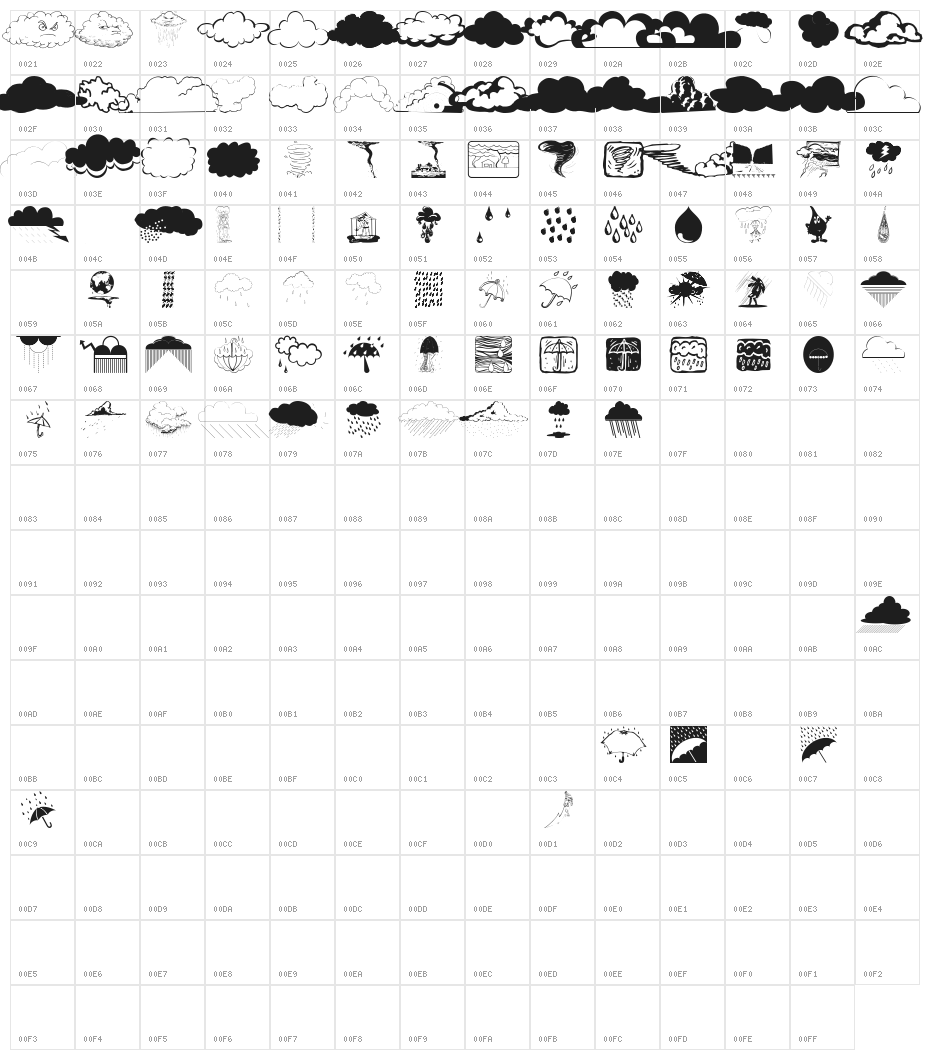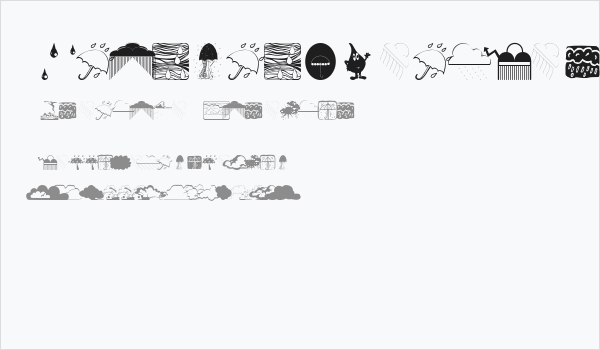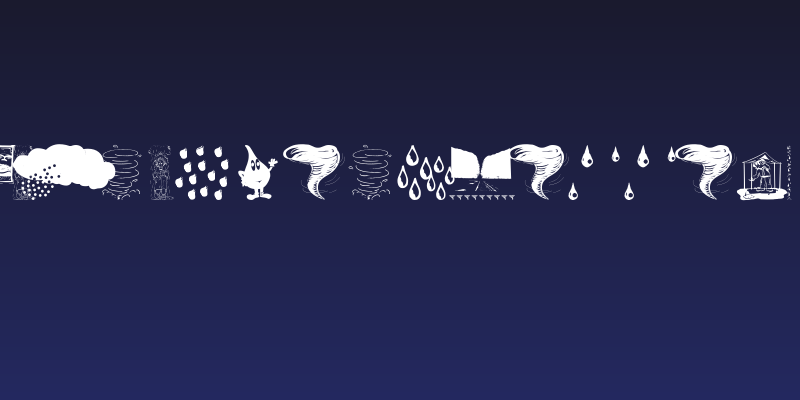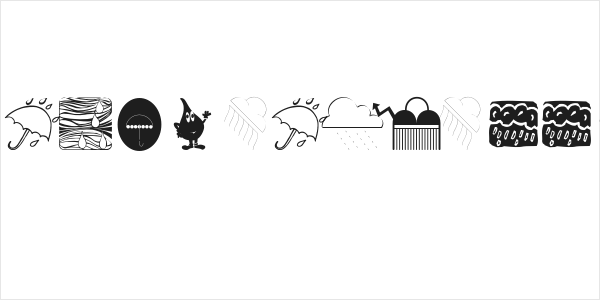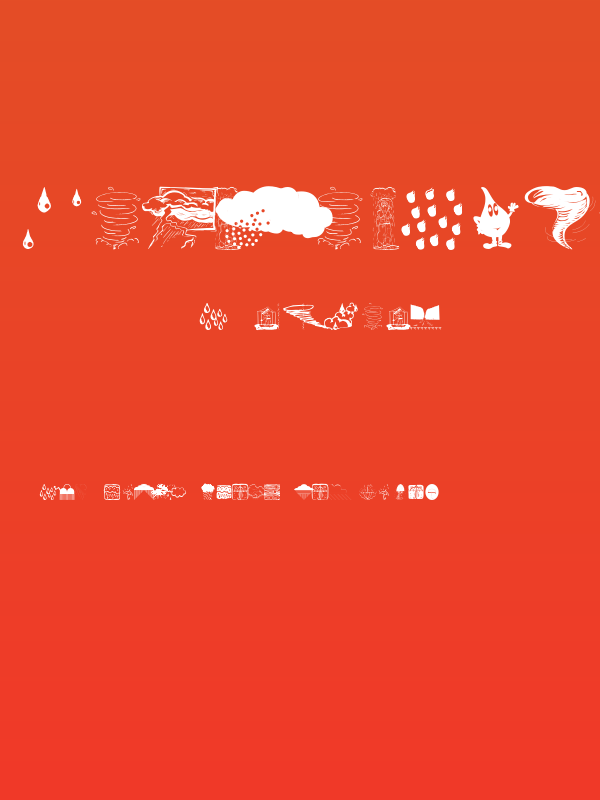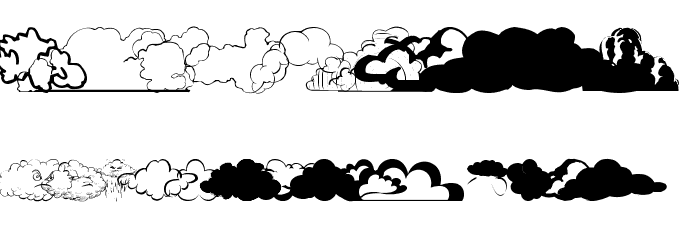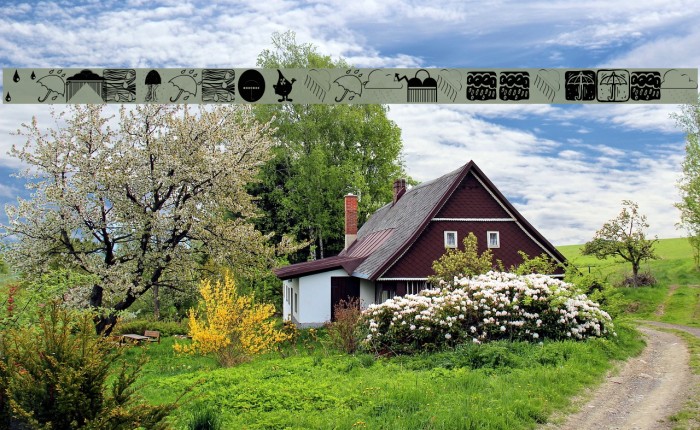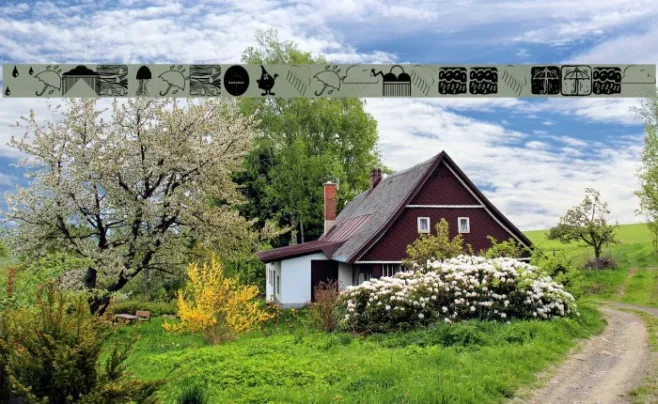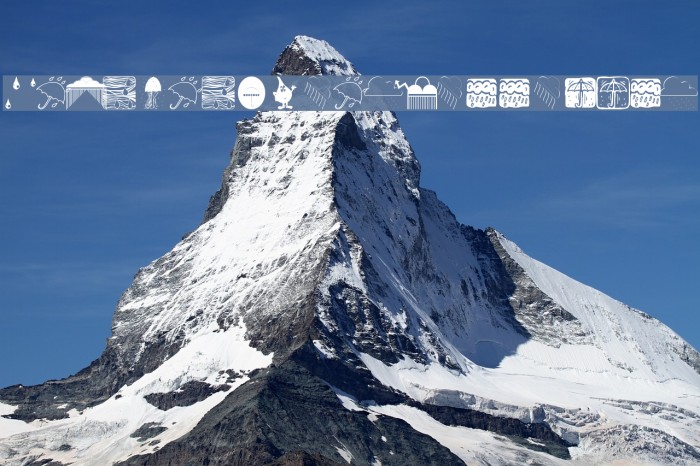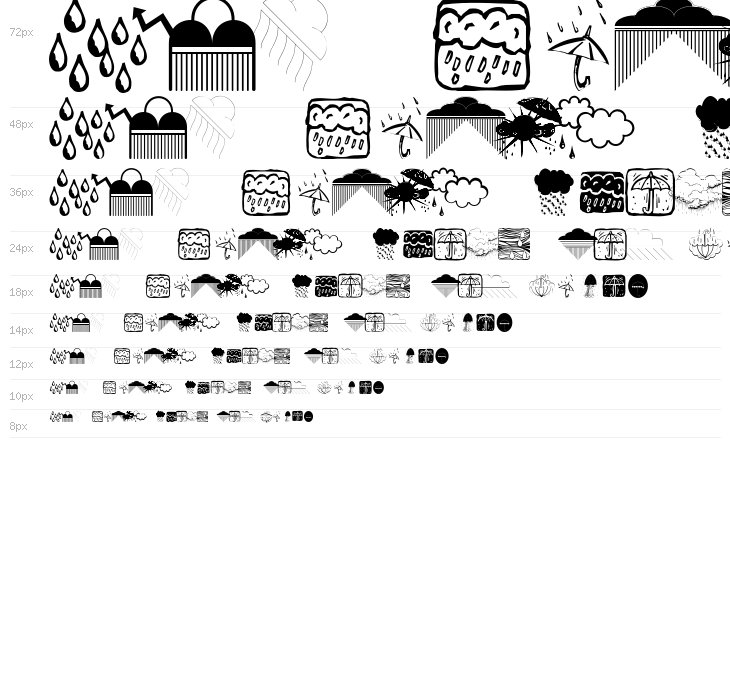
RainmansWeatherreport Font
RainmansWeatherreport Description
This is a decorative font composed of various weather-themed illustrations. Each character is represented by a unique weather-related icon, such as clouds, raindrops, umbrellas, and other meteorological symbols. The style is playful and artistic, making it suitable for creative projects. The icons are detailed and vary in complexity, providing a diverse range of visual elements. This font is not suitable for traditional text but excels in adding thematic visual interest to designs.
| Use Case | Logos, Illustrations, Thematic designs |
| Proposed Projects | Ideal for weather-related graphics, educational materials, children's books, and creative design projects. |